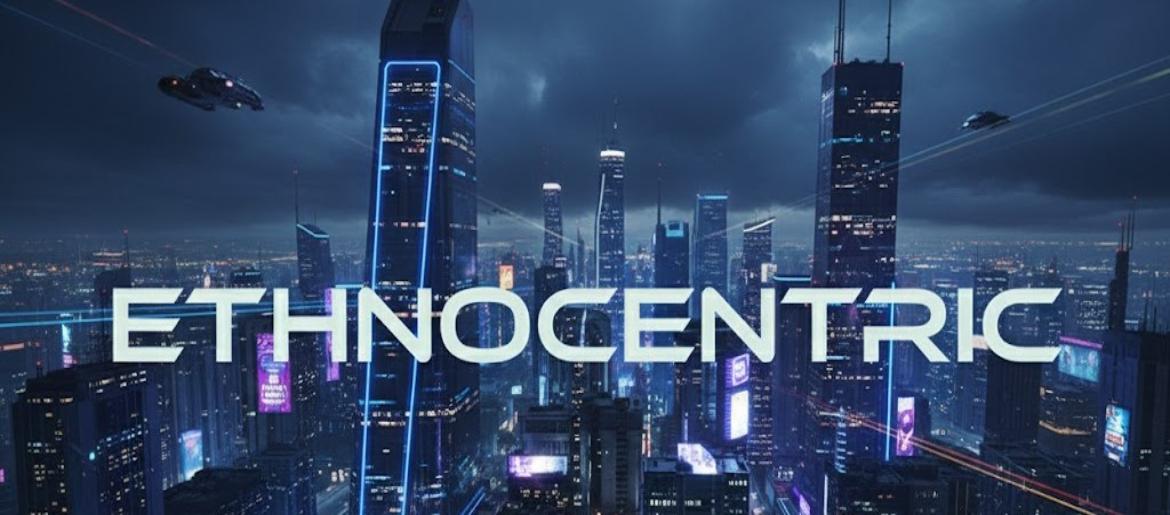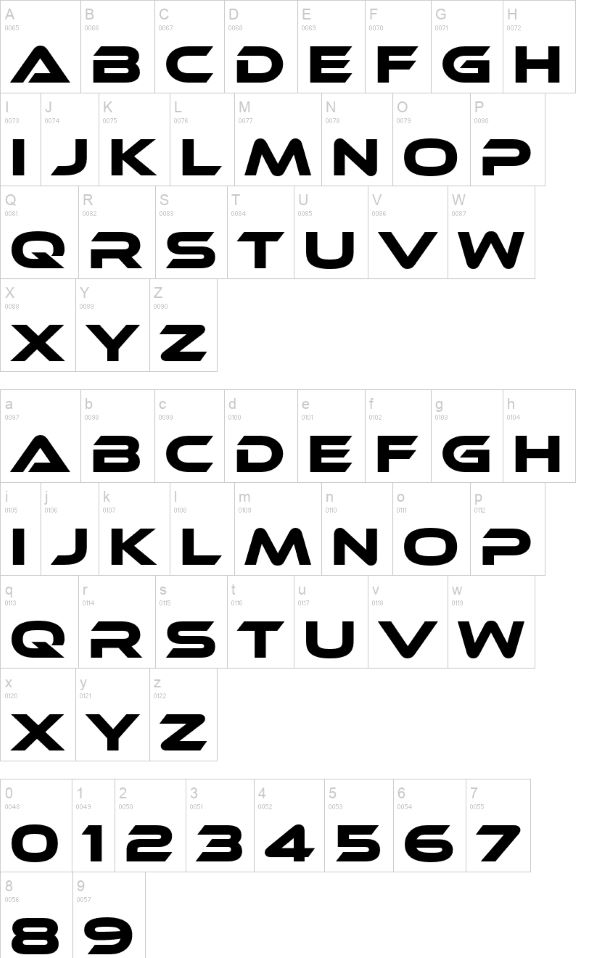
Ethnocentric Font
Ethnocentric Font is a futuristic sci-fi display typeface with sharp angles, sleek lines, and a high-tech aesthetic. Inspired by space, technology, and digital worlds, it’s perfect for gaming logos, movie titles, posters, and sci-fi branding. Ethnocentric delivers a bold, modern, and cutting-edge visual impact.
Font Name: Ethnocentric
Designer: Typodermic Fonts
Style: Sci-fi
Ethnocentric font